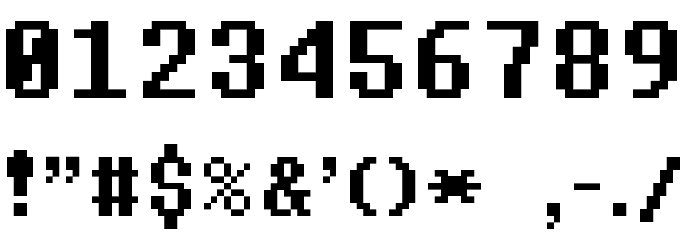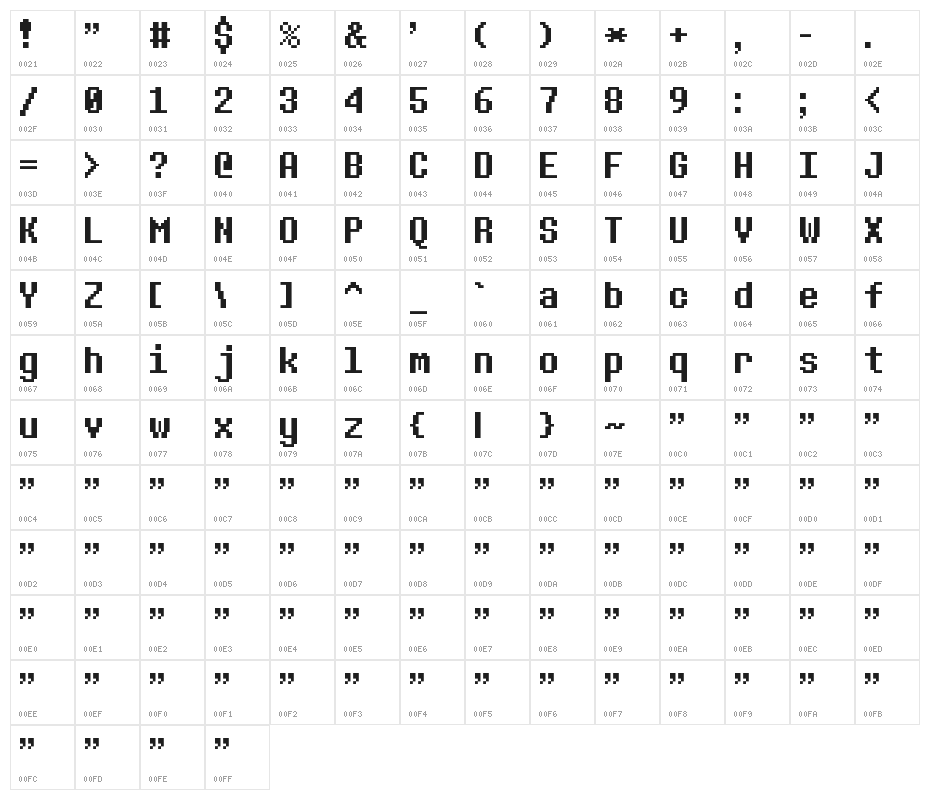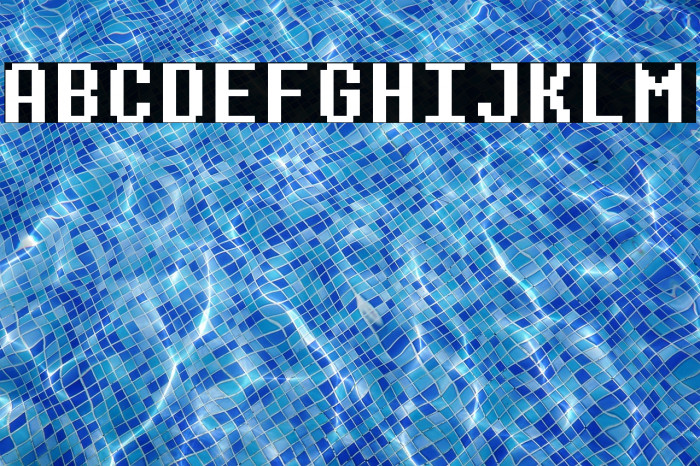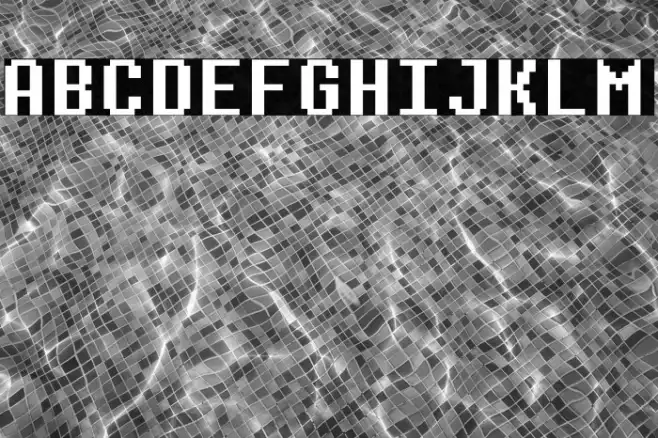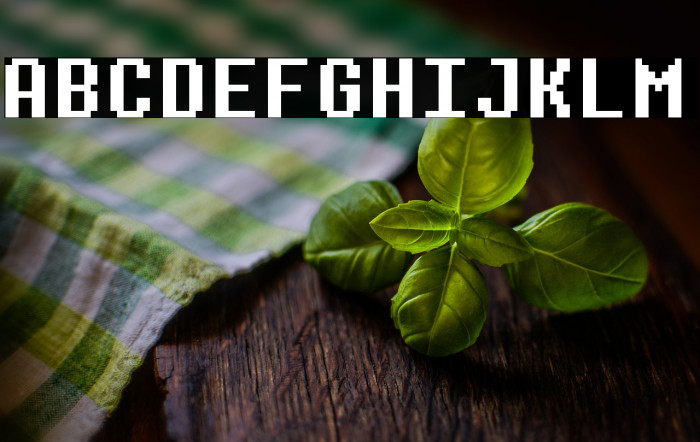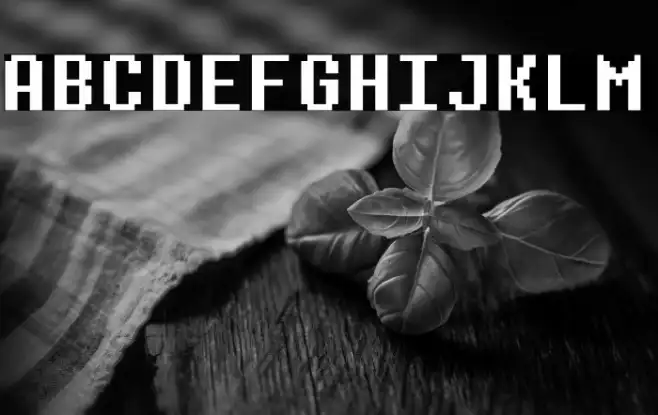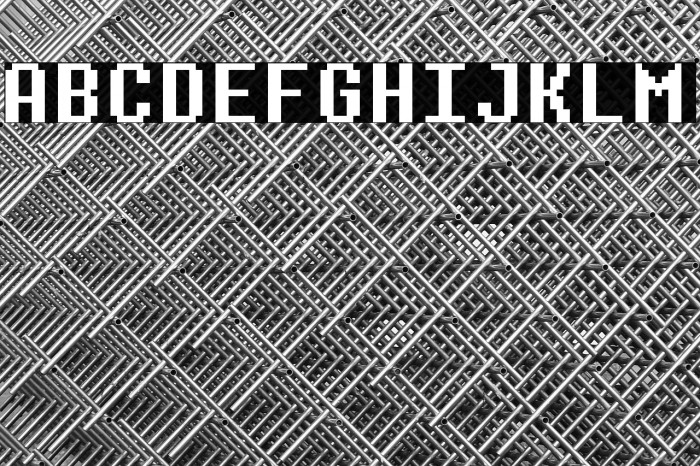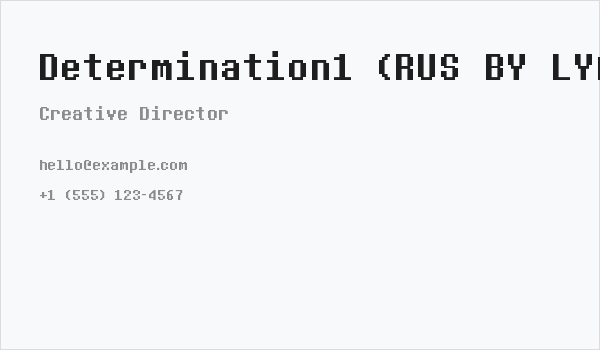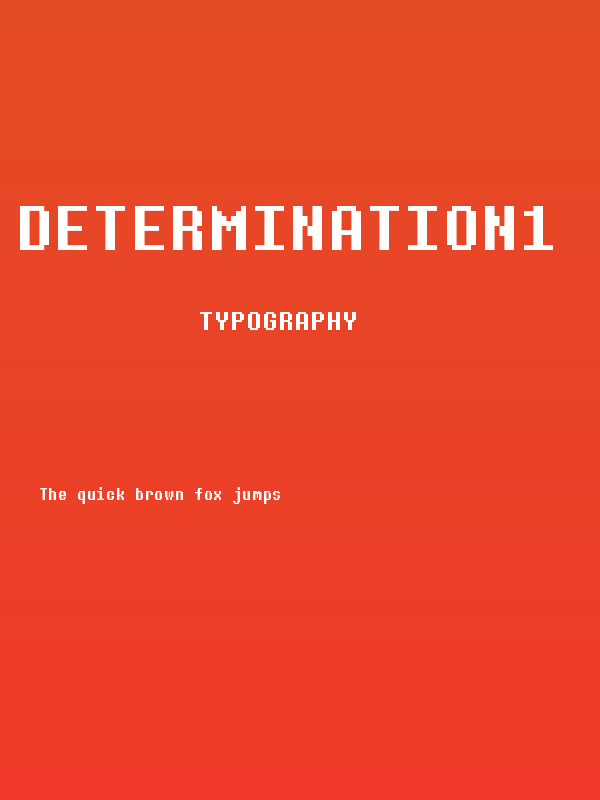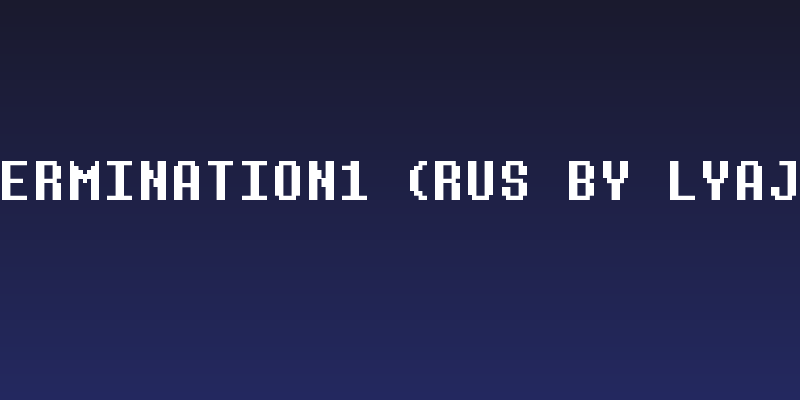
Determination1 (RUS BY LYAJKA) Font
Determination1 (RUS BY LYAJKA) Description
This font features a bold, pixelated style reminiscent of early digital displays and retro video games. Each character is constructed with a blocky, grid-like appearance, giving it a distinctly digital and vintage feel. The uppercase and lowercase letters maintain a consistent height and width, contributing to a monospaced look. The numbers and special characters follow the same design principles, ensuring uniformity across all glyphs. This font's design is straightforward, with no curves or embellishments, emphasizing clarity and legibility in a digital context.
| Proposed Projects | Ideal for retro-themed designs, video game graphics, digital art projects, and any creative work that requires a nostalgic digital touch. |